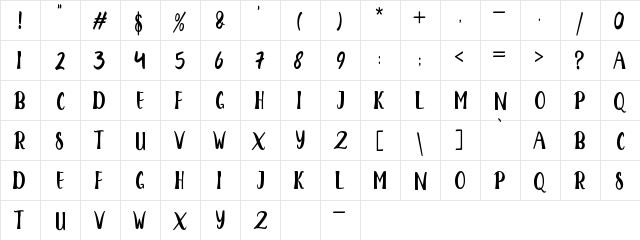
ROSELAND Regular
| Foundry | Toni Studio |
| Designer | Fatoni Nurman |
Design Context for ROSELAND Typeface
ROSELAND is a composed and adaptable typeface that performs quietly and consistently across a wide range of design contexts.